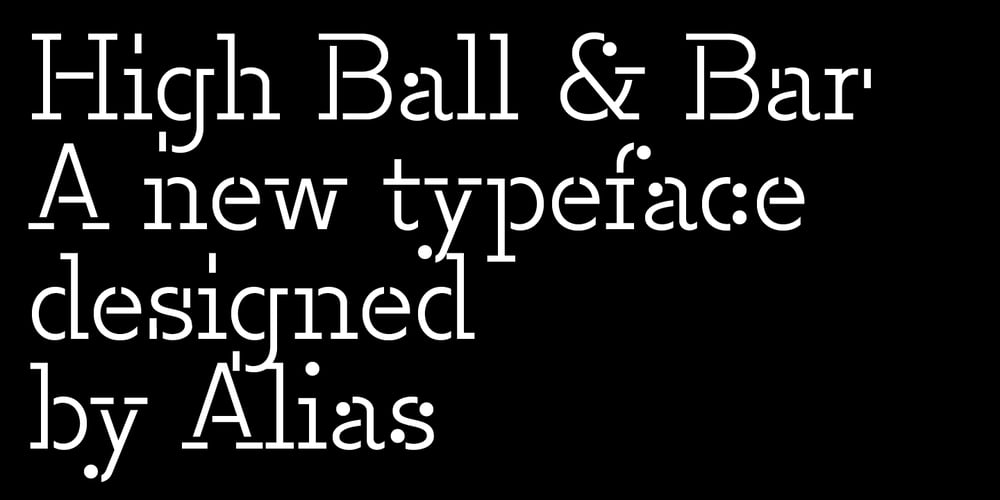
High Font Family was designed by Gareth Hague and published by Alias. High contains 12 styles and family package options. High is defined by a set of simple ideas, or constraints. A non-geometric, humanist shape. A monoline weight. Stencilled, with a horizontal or vertical cut only, the stencil gap consistent — so positioned where that is possible. High’s letter shapes, which because of the stencilling are free of awkward connections at curve-to-vertical, have a fluidity and simplicity. By separating the letter elements, the stencilling makes the letters interesting, graphic shapes, making decorative words. High has two options — High Bar, which is a linear serif, and High Ball — which has a circle-serif, like a ball terminal. The circle of HighBall suggests Didone typefaces, High Bar more utility, modern, slab serifs. With High Bar, the vertical serifs are consistently sized and unusually long. The shape repeats — the c has same-size serifs top and bottom, letters such as the f, j, r and y have slab serifs, the serifs and tittles of i and j the same size. These dash-serifs make a linear pattern, and has the feeling of a kind of a code. The ball terminal of High Ball gives a decorative effect — a series of floating, bouncing balls across words and text. The ball device is added top and bottom of the c, the g, j and y to ensure balance and rhythm across words and text. As with High Bar, the repeating pattern give a codified look.